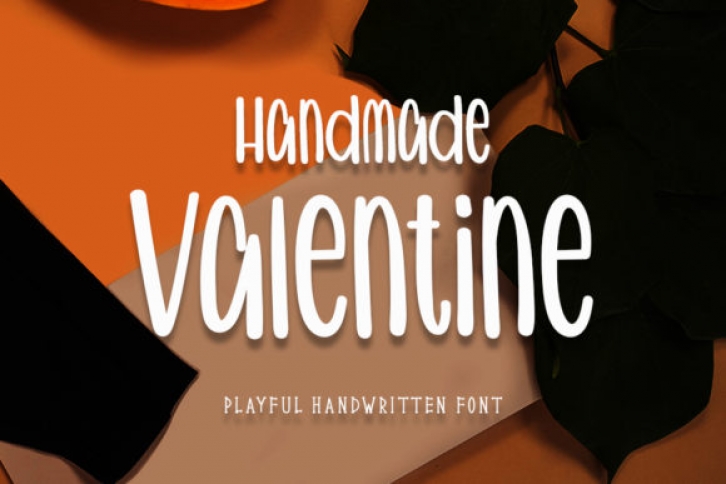
Handmade Valentine is a neat and playful handwritten font. Whether you’re looking for fonts for Instagram or calligraphy scripts for DIY projects, this font will turn any creative idea into a true piece of art!